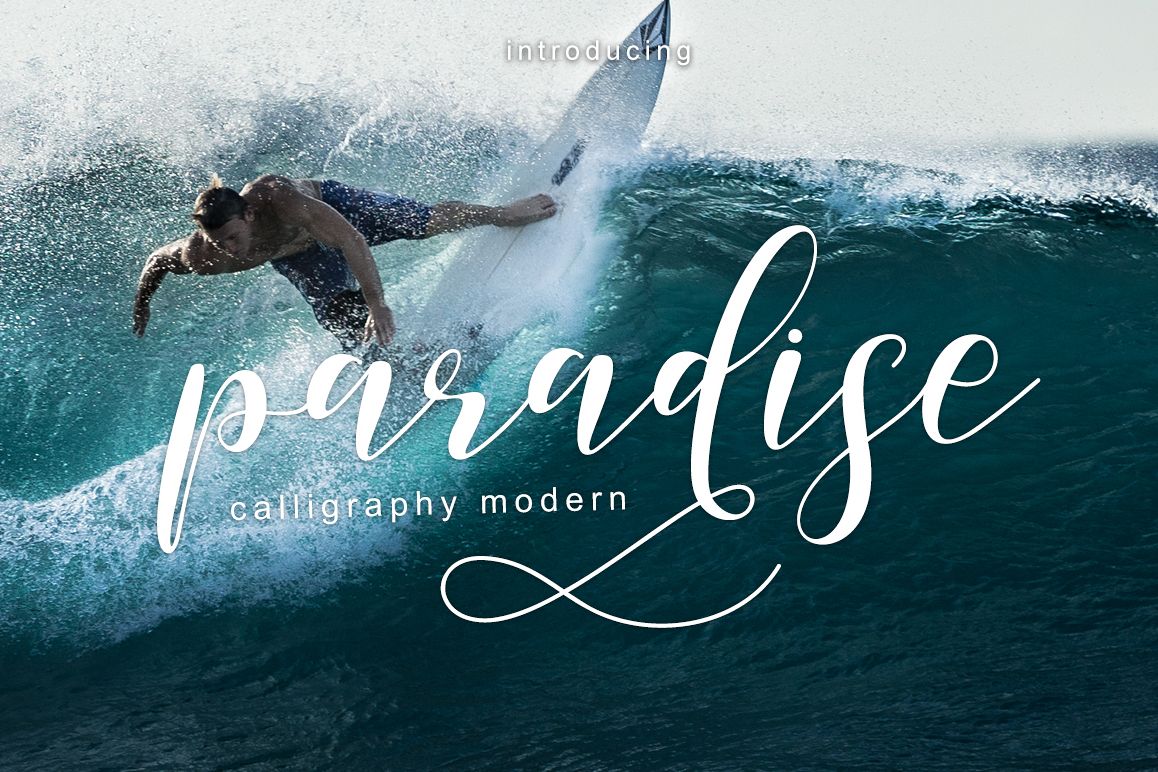
paradise calligraphy modern
paradise
Introducing
paradise
paradise modern script style, decorative characters and a dancing
baseline! So beautiful on invitation like greeting cards, branding
materials, business cards, quotes, posters, and more!!
paradise come with 393 glyphs. The alternative characters were
divided into several Open Type features such as Swash, Stylistic Sets,
Stylistic Alternates. The Open Type features can be accessed by using